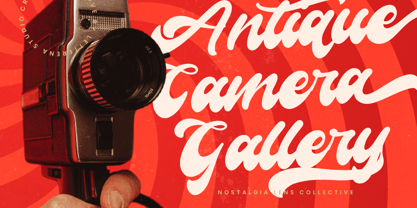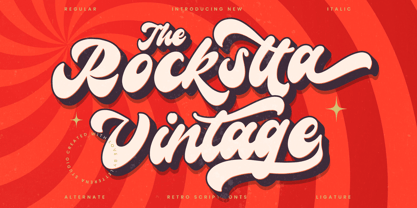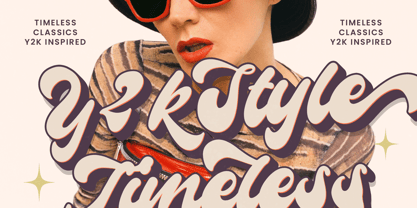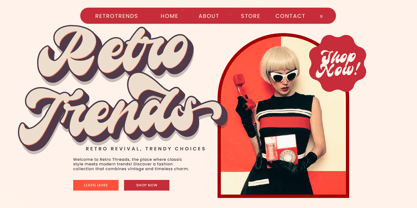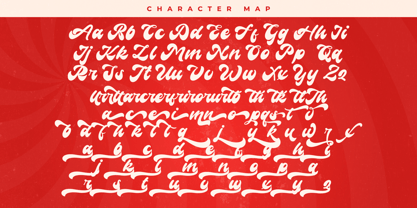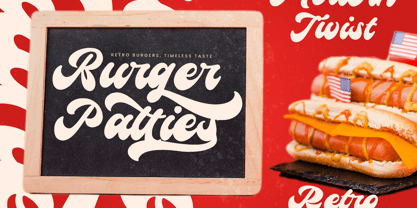
Rockstta Vintage
by Letterena Studios
The Rockstta Vintage Font Family was designed by Heru Utama Putra and published by Letterena Studios. Rockstta Vintage contains 2 styles and family package options. More about this family
Rockstta Vintage is a cool and stylish font that looks old-fashioned. It has fancy, swirly letters that remind you of classic designs from the past.